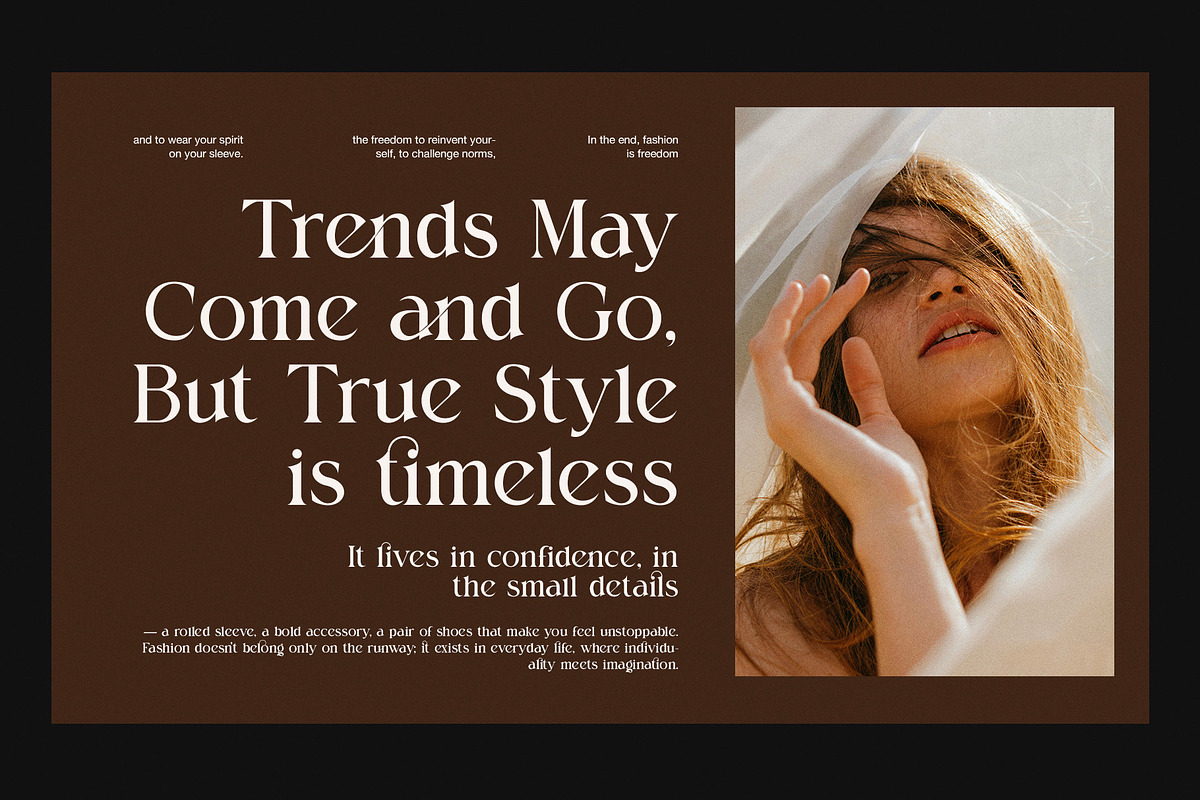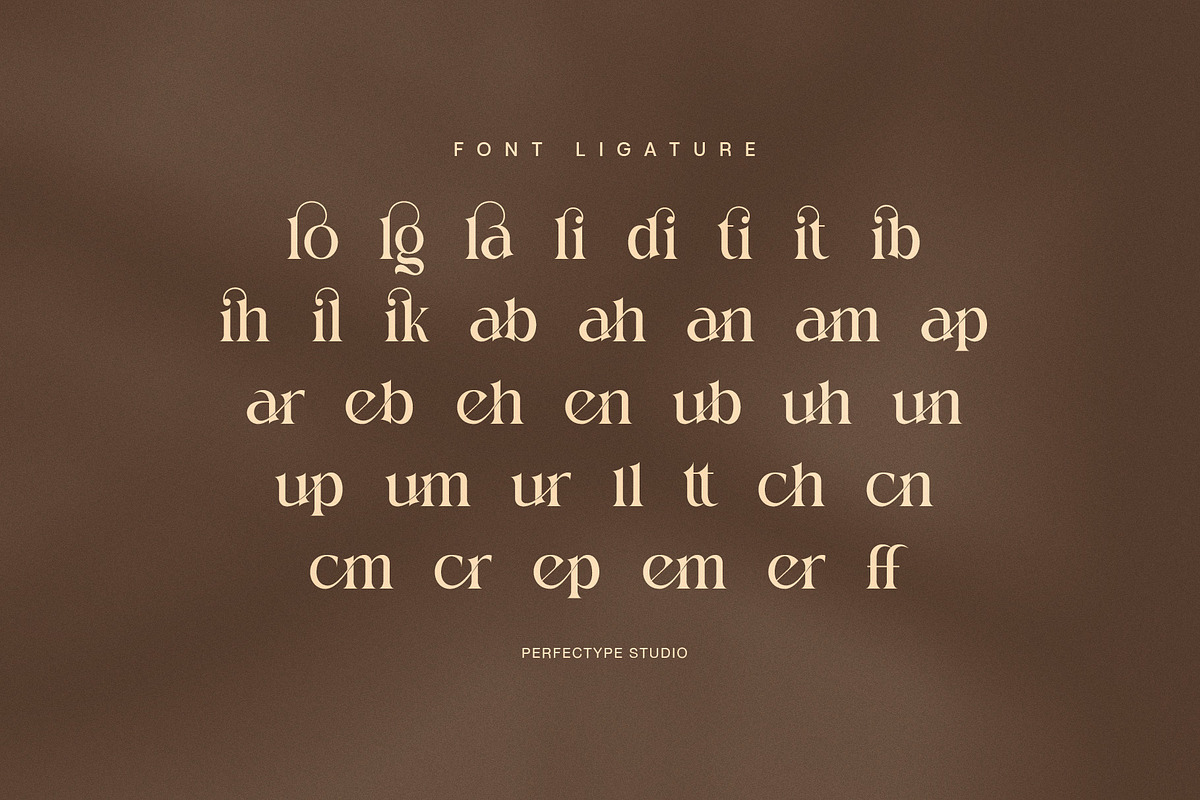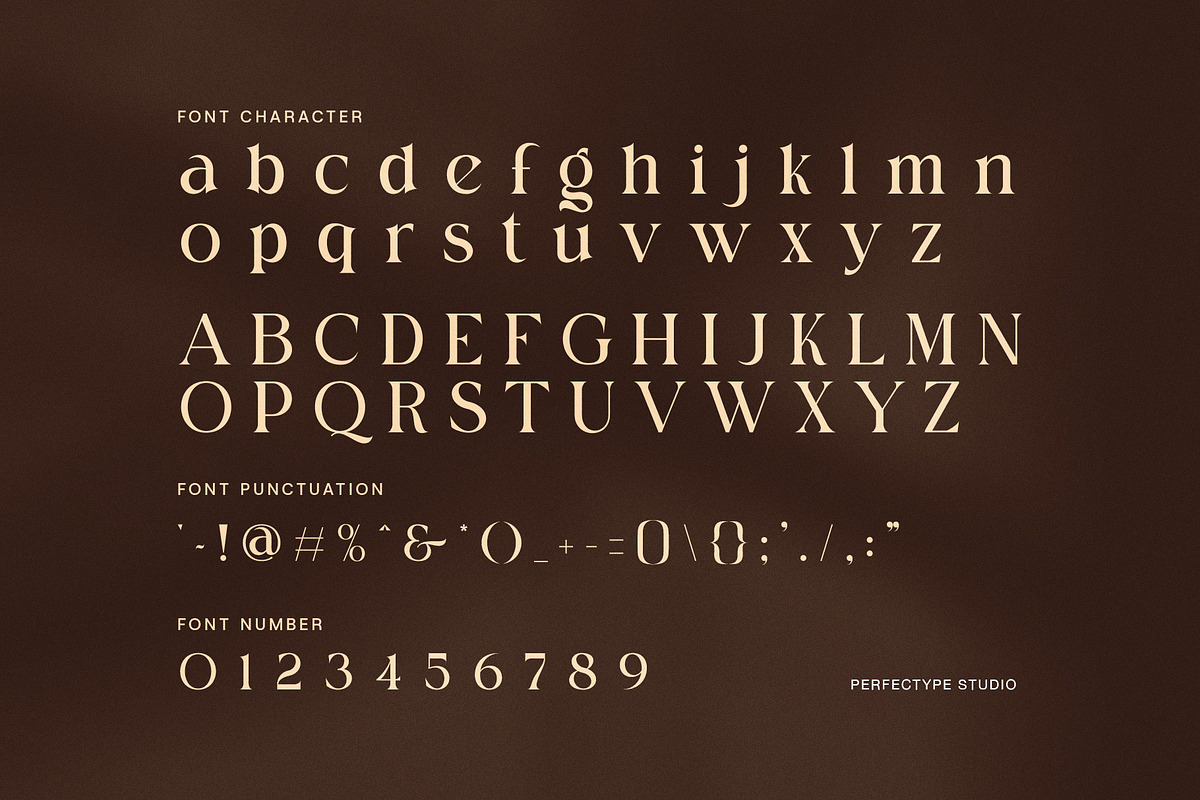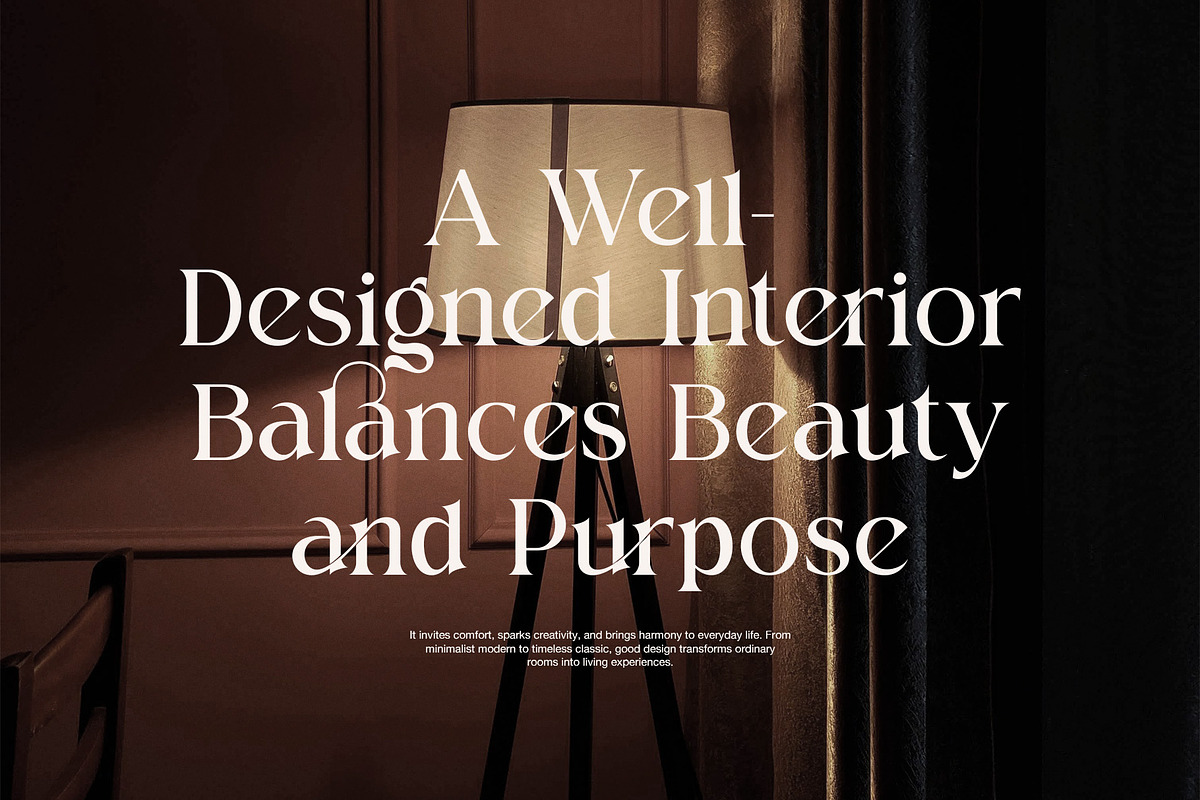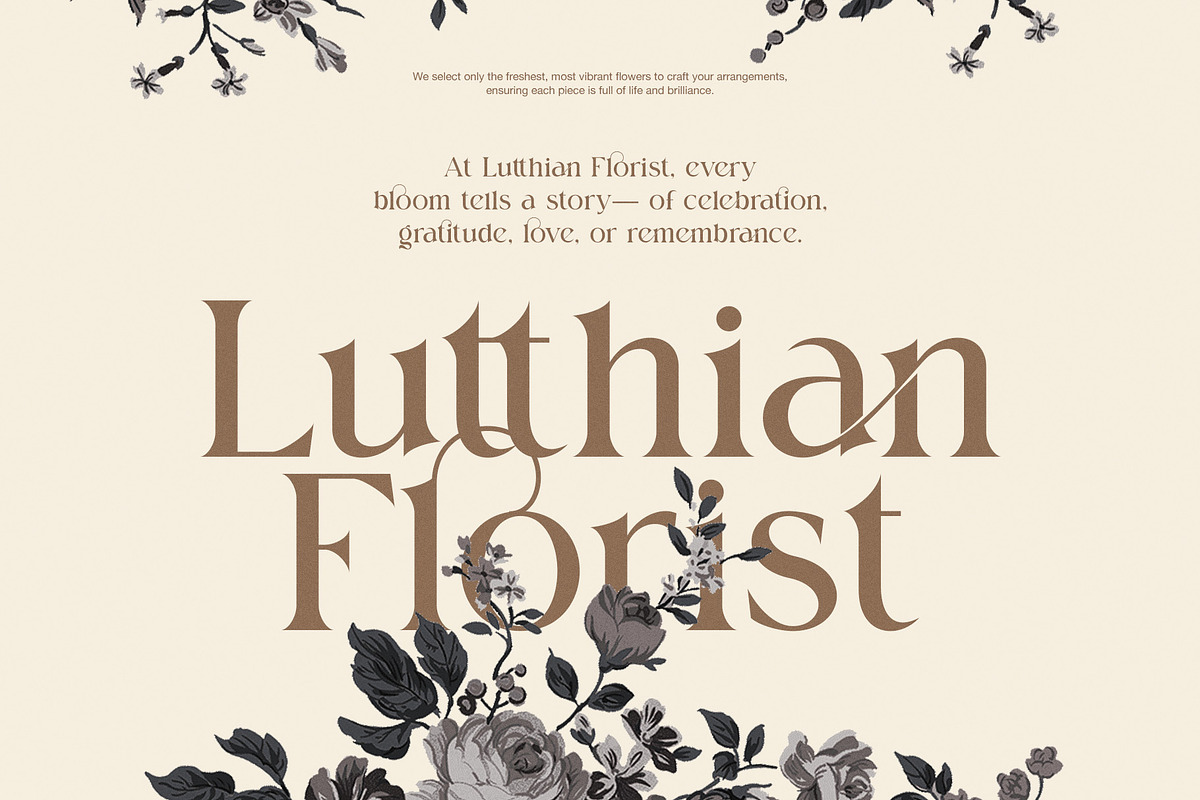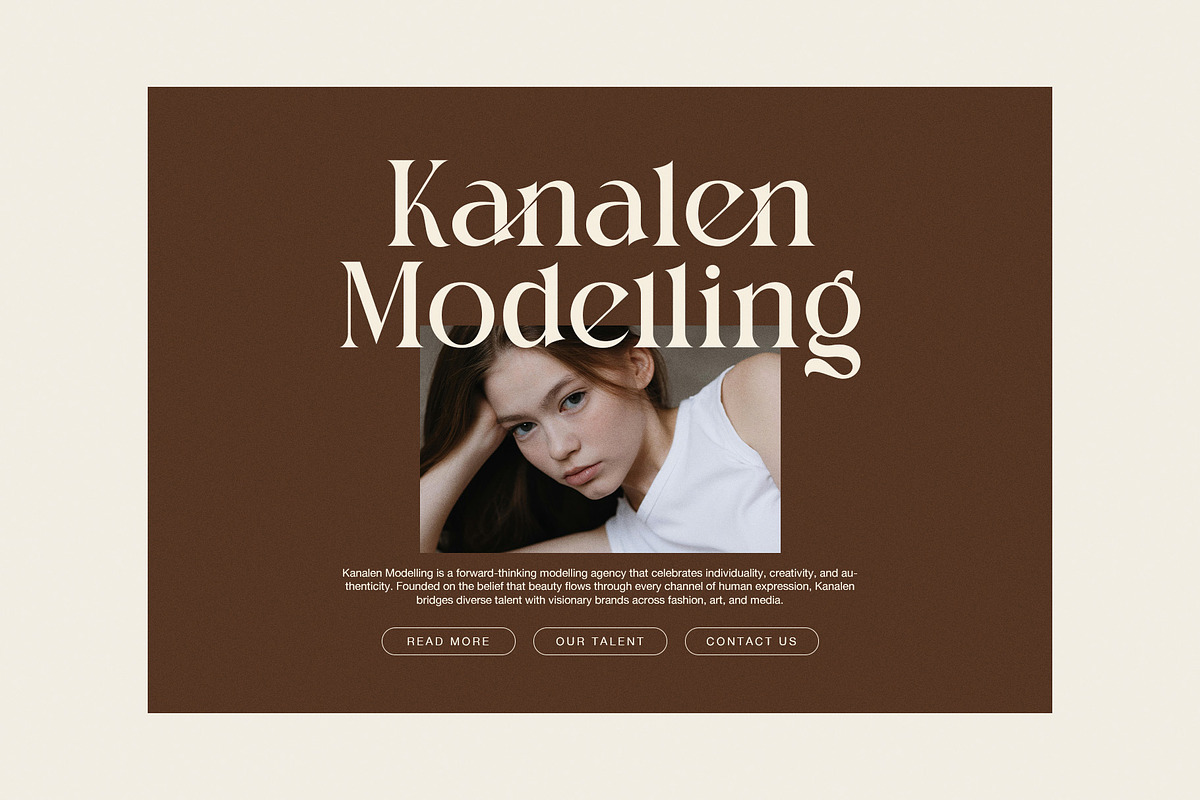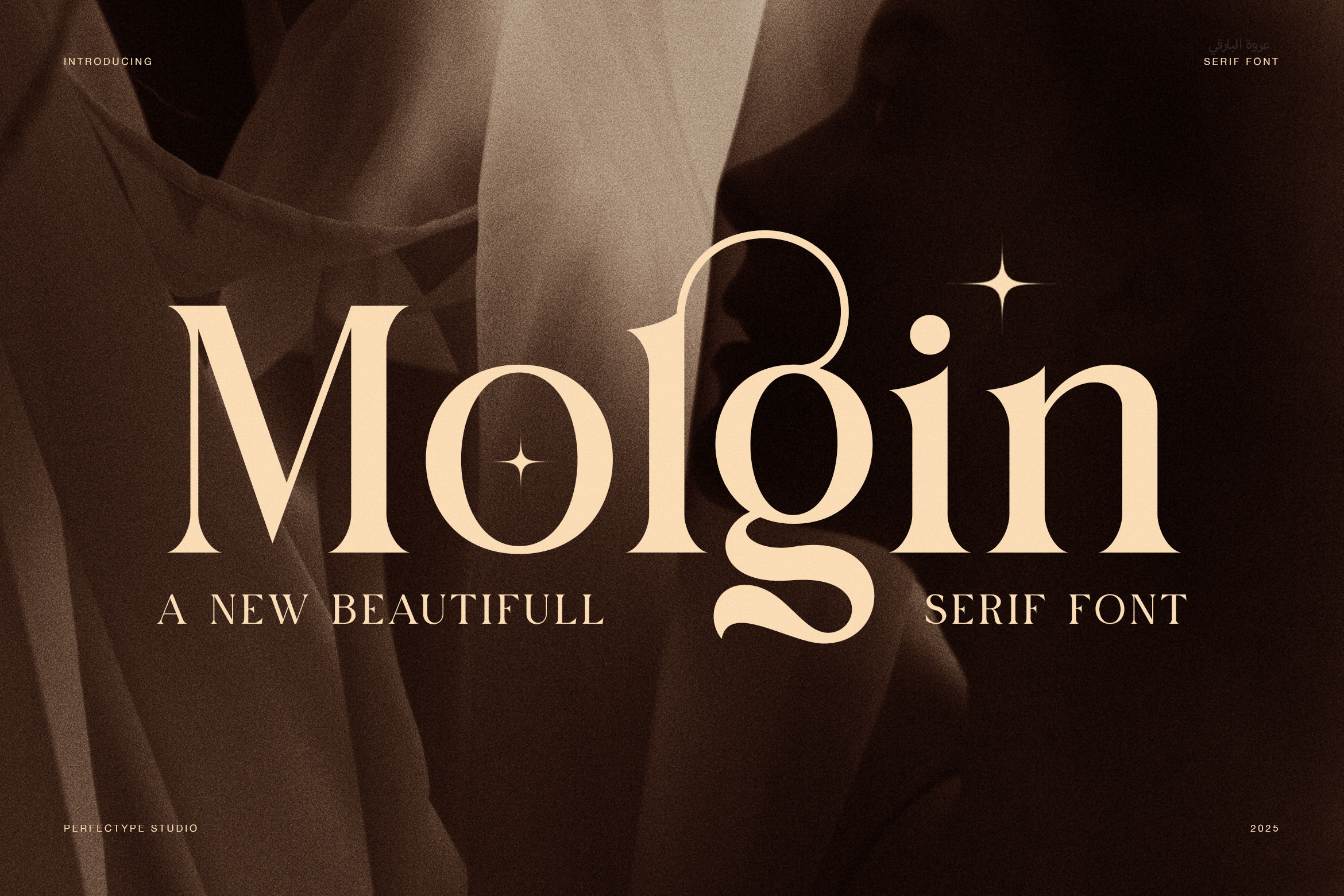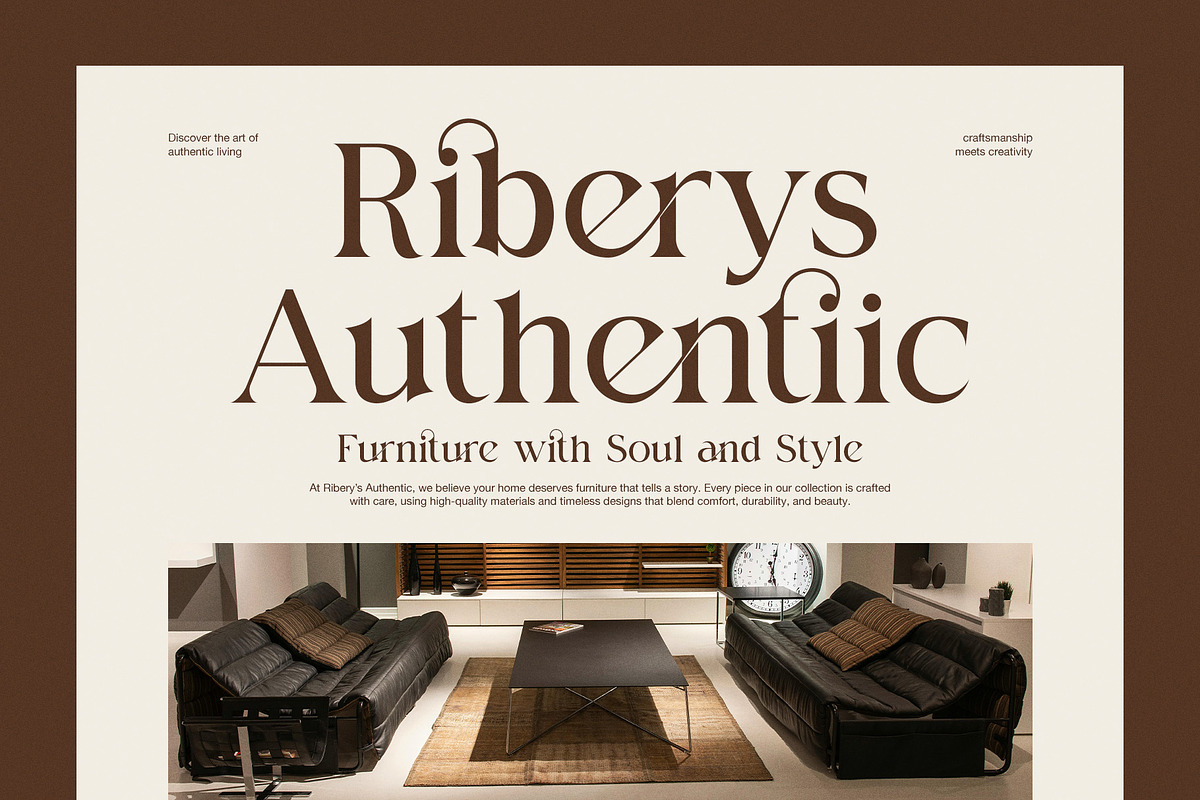
Molgin Elegant Serif Font
Molgin is an elegant serif font that blends classic sophistication with modern beauty. It was designed for creators who appreciate balance, refinement, and timeless style. Because of its graceful lines and high contrast, Molgin delivers a strong visual presence while staying beautifully readable.
Each letter was shaped with care. As a result, the font feels natural and confident in any layout. Its subtle curves and artistic ligatures make it ideal for branding, packaging, magazines, and digital content. Moreover, its polished look helps elevate every design project instantly.
Why Choose Molgin?
Elegant serif with smooth ligatures
Perfect for branding, fashion, and packaging
Includes uppercase, lowercase, punctuation, and numerals
Works in both print and digital design
Easy to read while staying visually distinctive
Molgin’s charm lies in its harmony. It adds emotion without losing clarity. Furthermore, its alternates and ligatures allow designers to experiment freely. Whether you craft a logo, a wedding invitation, or a luxury brand, this typeface makes your work stand out with style and grace.
In addition, Molgin’s structure ensures balance between beauty and practicality. It adapts easily to large headlines and small text. Because of its versatility, it’s suitable for everything from elegant websites to artistic editorial spreads.
Every curve and serif of Molgin reflects creativity. It doesn’t simply decorate words — it enhances them. When you use Molgin, your designs instantly feel sophisticated, warm, and meaningful.